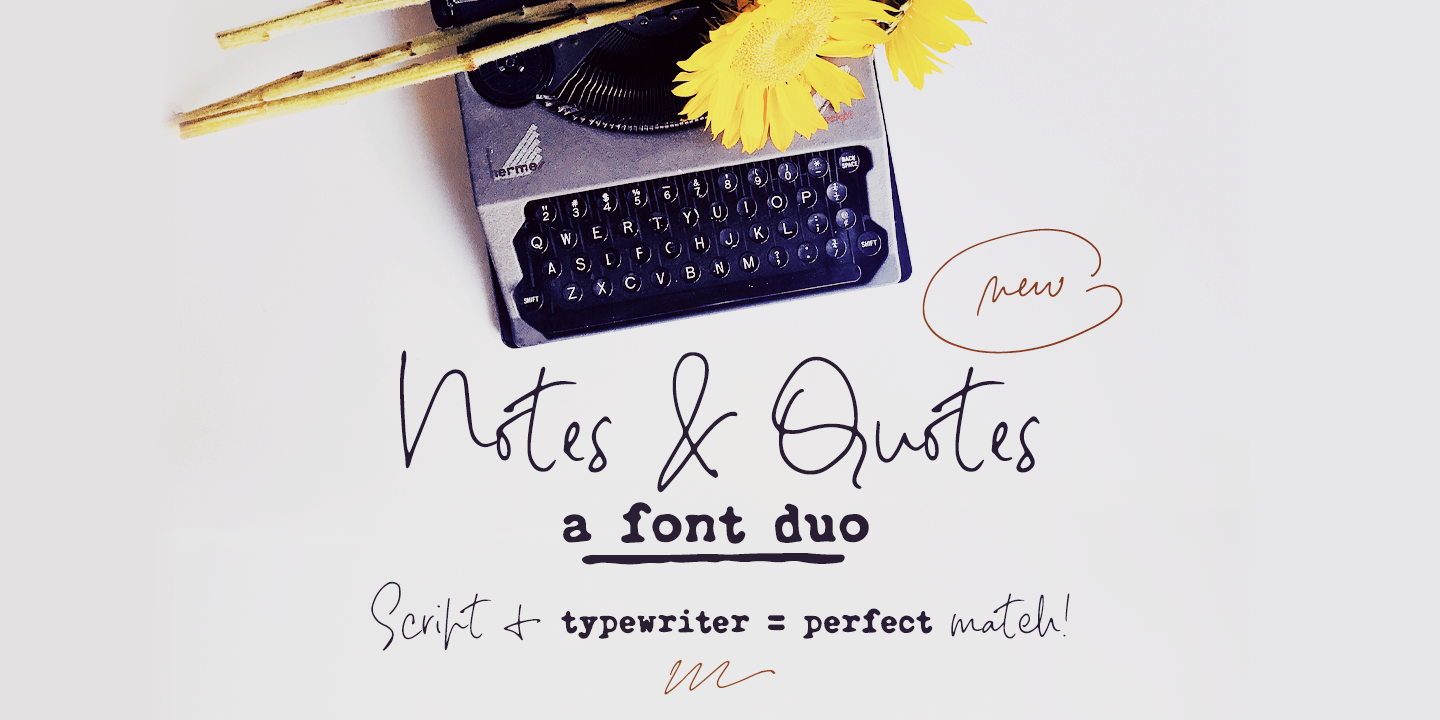
Notes and Quotes Font is perfect for inspirational social media graphics, motivational poster designs, journal and planner layouts, literary magazine publications, creative writing workshops, book quote designs, personal stationery projects, and thoughtful greeting card collections.
Notes and Quotes Font is exciting because it beautifully captures the intimate charm of handwritten wisdom and personal reflection with its organic letterforms that feel like treasured journal entries and meaningful conversations, embodying the authentic human connection found in shared thoughts and inspiring words, making it ideal for projects requiring emotional resonance and personal authenticity.
The Notes and Quotes Font family includes multiple weights and styles such as Regular, Bold, Light, Italic, and Handwritten versions, providing designers with comprehensive options for creating heartfelt typographic systems that maintain the personal, reflective aesthetic across various inspirational and literary applications.
Notes and Quotes Font Free Download offers designers access to a deeply personal typeface that embodies the power of written words to inspire, comfort, and connect people across cultures and generations. This exceptional font captures the essence of meaningful communication and the intimate beauty of handwritten thoughts, creating a powerful tool for projects seeking to touch hearts and share wisdom through authentic visual storytelling.
The font's organic letterforms feature gentle curves and natural variations that mirror the spontaneous flow found in personal handwriting and heartfelt correspondence. Each character has been carefully crafted to maintain the human touch that makes Notes and Quotes Font so effective in applications requiring emotional authenticity and personal connection with audiences seeking inspiration and meaningful content.
Professional designers working with lifestyle brands and inspirational content creators appreciate this font's ability to instantly communicate sincerity and emotional depth. The typeface excels in applications where personal authenticity meets meaningful messaging, from motivational brand identity to literary publication design, from social media content creation to personal development materials.
The comprehensive character set includes expressive punctuation and decorative elements that enhance the handwritten aesthetic, making it particularly suitable for quote-based projects while preserving its distinctive personal character. Whether used for inspirational headlines, journal layouts, or thoughtful social media graphics, this font delivers consistent emotional impact that enhances reader connection and message retention.
Creative professionals in the lifestyle and publishing industries have embraced Notes and Quotes Font for its unique ability to transform ordinary text into meaningful visual experiences. Its versatility allows it to adapt seamlessly to both digital and print applications while maintaining its authentic, handcrafted appeal and emotional warmth.
This remarkable typeface has become an essential tool for designers who understand that certain messages require typography that speaks directly to the human heart. Its ability to instantly communicate authenticity and emotional sincerity makes it invaluable for brands and creators sharing inspirational content and meaningful stories.